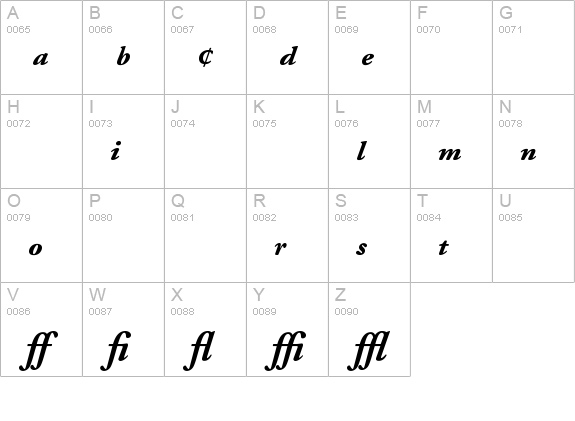
Adobe Garamond Bold Italic Expert Font Details
Adobe Garamond Bold Italic Expert is a strong, high-contrast, italic variant in the Adobe typeface family \xE2\x80\x94 well suited to headlines, attention-grabbing titles, and strong calls-to-action.